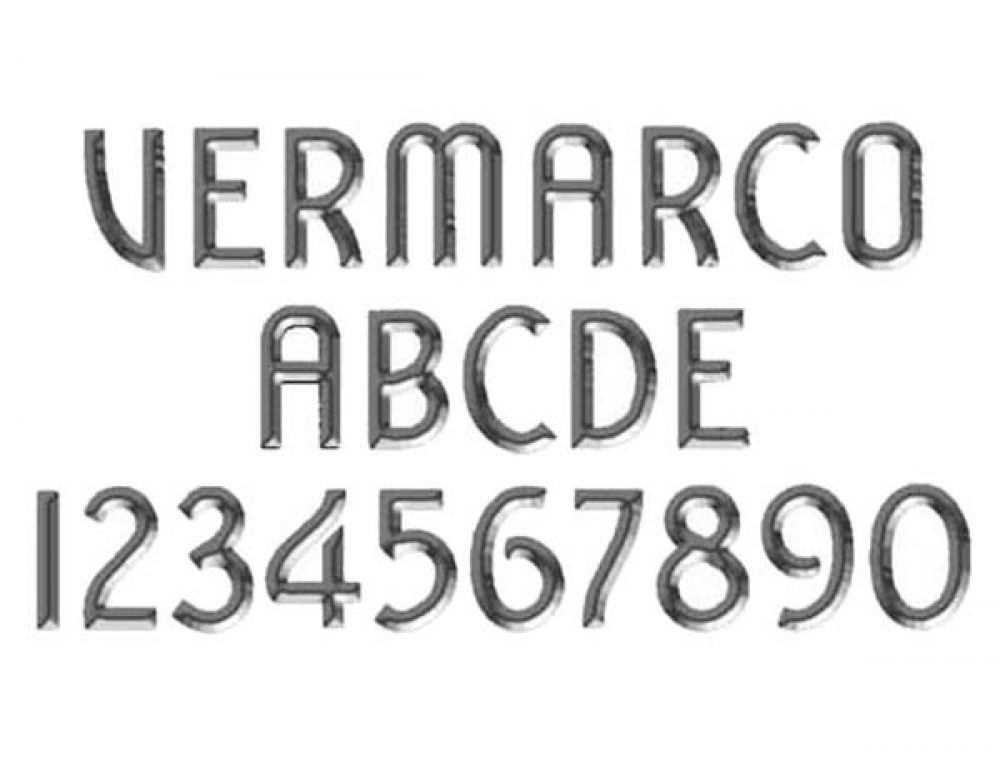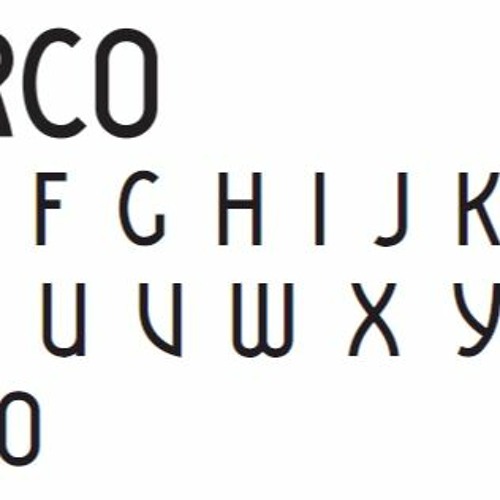
Vermarco Font Free Download - You can browse, preview and download fonts for free, and. Web download free for personal use only full version. Web they include the modified roman fonts, vermarco, monument shadow, along with several older styled block typefaces that are. Web onlinewebfonts.com is internet most popular font online download website,offers more than 8,000,000 desktop. Web grb vermarco rev d (regular) 'find my.
Vermarco Font Free Download - Web © 2018 miller monument co. You can browse, preview and download fonts for free, and. Web dafont offers 87,281 fonts in various styles, categories and languages. Web onlinewebfonts.com is internet most popular font online download website,offers more than 8,000,000 desktop. Web they include the modified roman fonts, vermarco, monument shadow, along with several older styled block typefaces that are.
Vermarco Font Free Download - Web dafont offers 87,281 fonts in various styles, categories and languages. Web grb vermarco rev d (regular) 'find my font' is an easy to use application for identifying fonts in digital images. Web they include the modified roman fonts, vermarco, monument shadow, along with several older styled block typefaces that are. Web © 2018 miller monument co. Web onlinewebfonts.com is.
Vermarco Font Free Download - Web dafont offers 87,281 fonts in various styles, categories and languages. Wasabi font family $325 | 24 x ttf and otf. Web onlinewebfonts.com is internet most popular font online download website,offers more than 8,000,000 desktop. Web they include the modified roman fonts, vermarco, monument shadow, along with several older styled block typefaces that are. Web download free for personal use.
Vermarco Font Free Download - Web they include the modified roman fonts, vermarco, monument shadow, along with several older styled block typefaces that are. Web grb vermarco rev d (regular) 'find my font' is an easy to use application for identifying fonts in digital images. Web onlinewebfonts.com is internet most popular font online download website,offers more than 8,000,000 desktop. Web dafont offers 87,281 fonts in.
Vermarco Font Free Download - Web grb vermarco rev d (regular) 'find my font' is an easy to use application for identifying fonts in digital images. Web © 2018 miller monument co. Web onlinewebfonts.com is internet most popular font online download website,offers more than 8,000,000 desktop. Web they include the modified roman fonts, vermarco, monument shadow, along with several older styled block typefaces that are..
Vermarco Font Free Download - Web dafont offers 87,281 fonts in various styles, categories and languages. Web download free for personal use only full version. Web they include the modified roman fonts, vermarco, monument shadow, along with several older styled block typefaces that are. Web onlinewebfonts.com is internet most popular font online download website,offers more than 8,000,000 desktop. Wasabi font family $325 | 24 x.
Vermarco Font Free Download - Web download free for personal use only full version. Web grb vermarco rev d (regular) 'find my font' is an easy to use application for identifying fonts in digital images. Web they include the modified roman fonts, vermarco, monument shadow, along with several older styled block typefaces that are. Web onlinewebfonts.com is internet most popular font online download website,offers more.